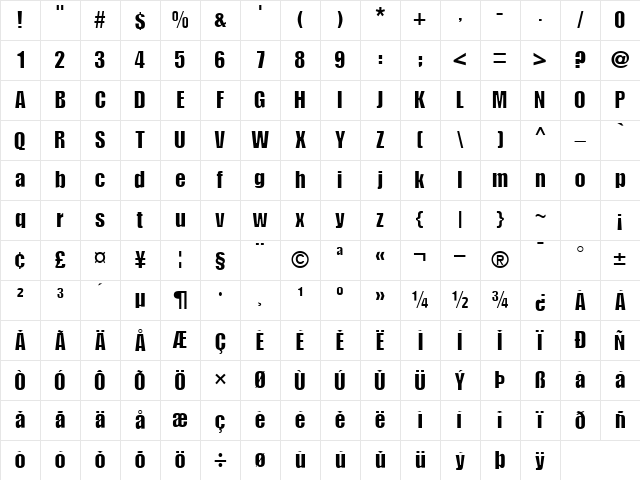
ShortHaulLightSSK Regular Free Font
Design Context for ShortHaulLightSSK
ShortHaulLightSSK is a composed and adaptable typeface that performs quietly and consistently across a wide range of design contexts. Its slender proportions lend an understated elegance to any composition.